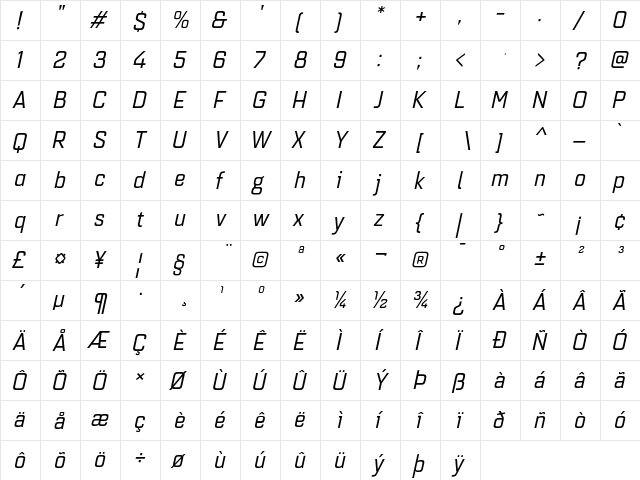
Quarca Norm Regular Italic
Design Context for Quarca Typeface
Quarca takes a measured approach to typography — its balanced proportions and neutral character make it a reliable workhorse for both digital and print work. Its italic angle brings a sense of urgency and motion to the letterforms.
Pro Tip: Try Quarca for annotation and caption copy alongside an upright companion — the contrast in angle creates a dynamic but ordered typographic system.